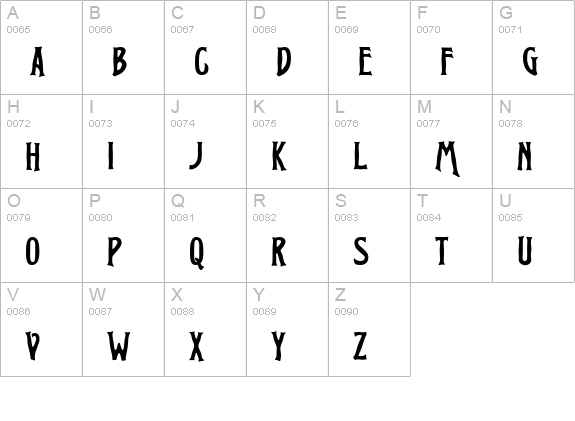
CgVirile Font Details
CgVirile font exudes strength, confidence, and sophistication with its bold and distinctive design. Its sharp lines and sleek curves make a powerful statement, perfect for projects that demand a bold and impactful typeface. The elegant yet commanding presence of CgVirile font is ideal for branding, headlines, logos, and more. What's even better is that CgVirile font is available for free download at FontsMarket.com. This means you can easily access this striking font for your creative projects without any cost. Don't miss out on the opportunity to elevate your designs with the impressive CgVirile font, now just a click away for free at FontsMarket.com.